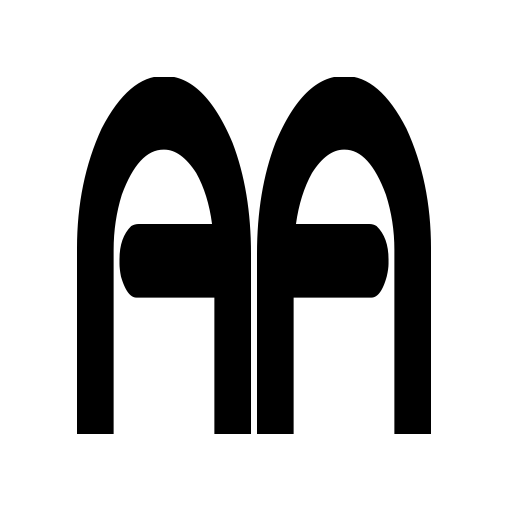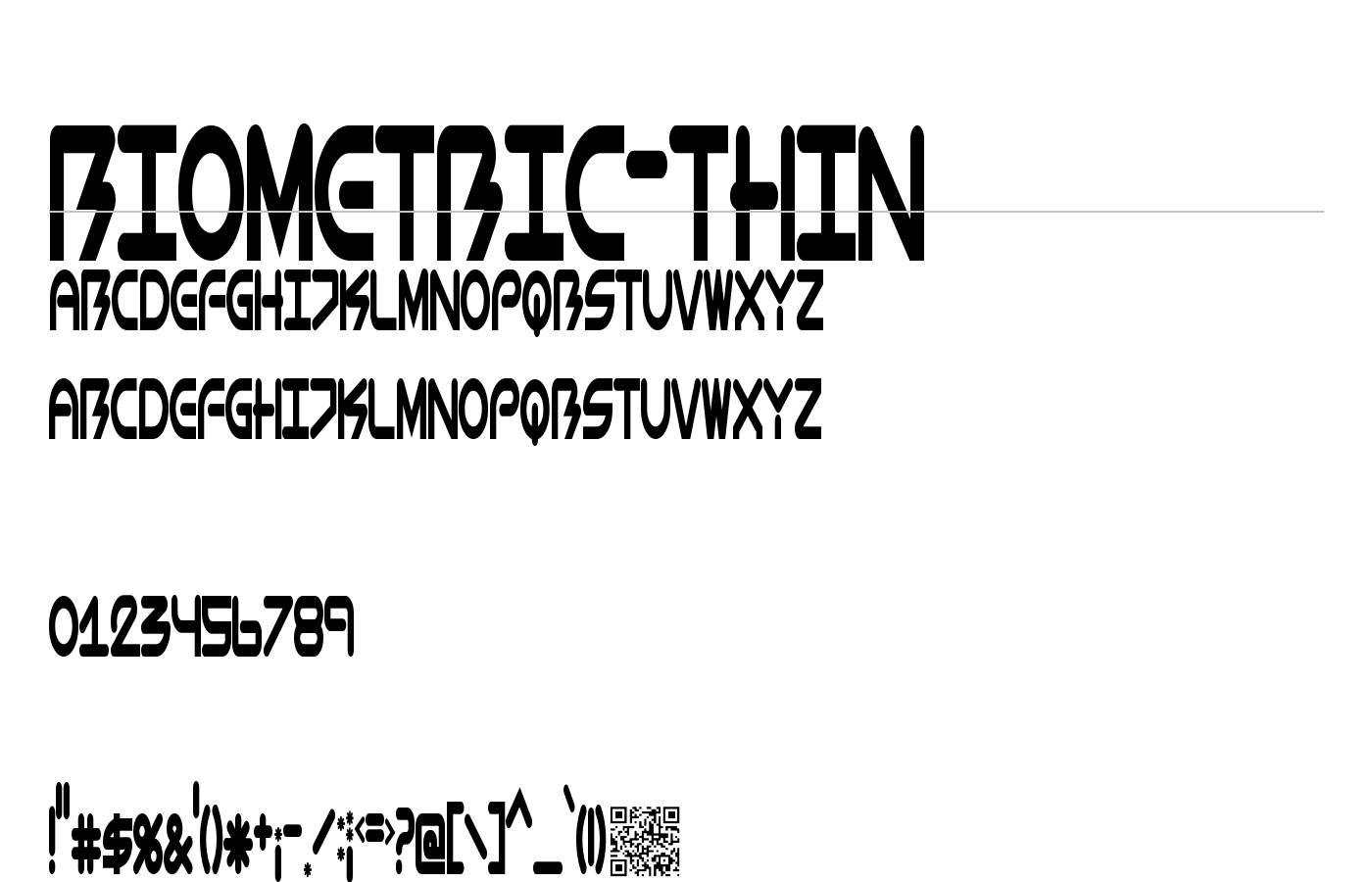
BioMetric-Plain is a bold, condensed sans-serif font with a futuristic and techno-inspired design. Its geometric shapes, sharp angles, and unique character forms give it a strong, modern personality that suits sci-fi themes, tech branding, and digital interfaces. This font works best in headlines and logos where a striking, edgy look is desired.
BioMetric-Plain Font
About BioMetric-Plain Font
| Font family | BioMetric-Plain Font |
| Designer | Max Infeld Xerographer Fonts |